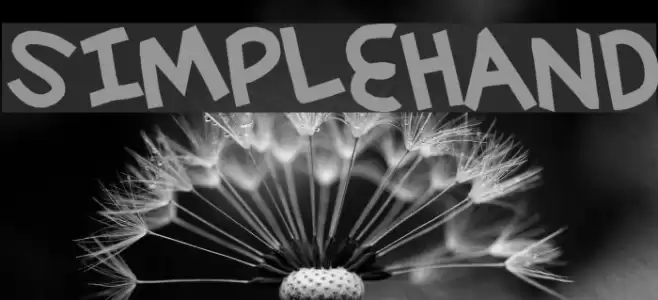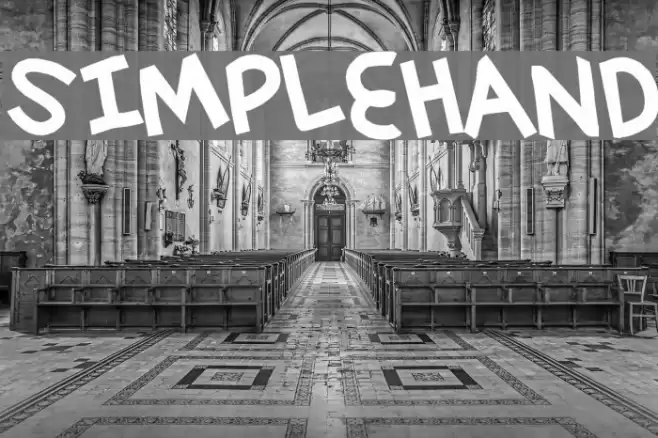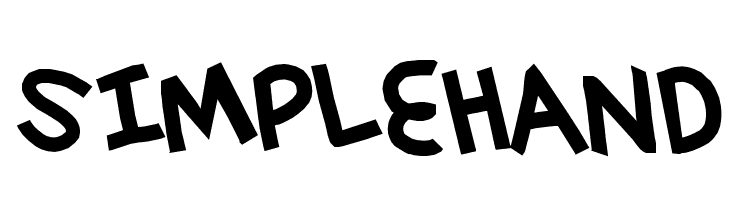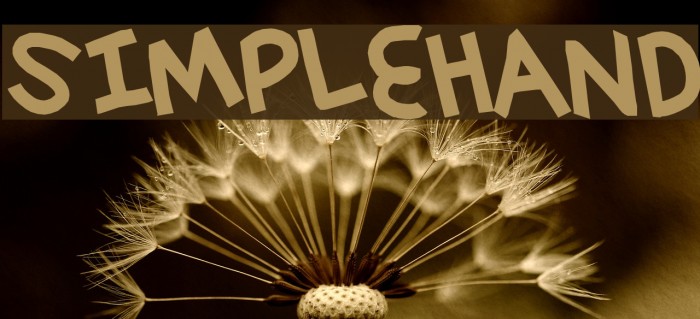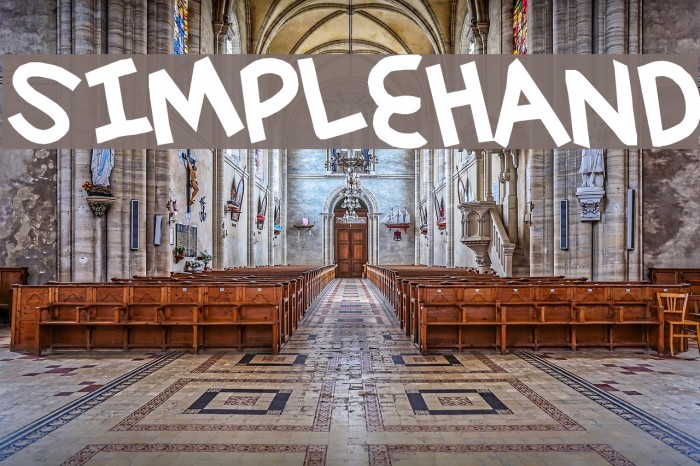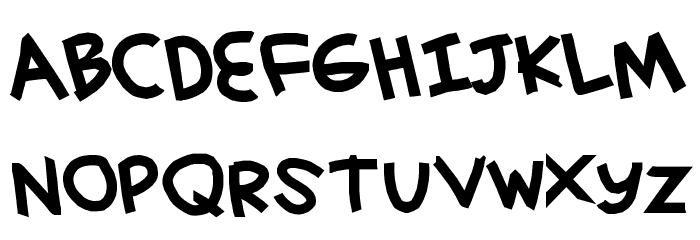
simplehand Font
simplehand Description
This font features a playful and energetic style, characterized by its bold and slightly irregular letterforms. The strokes are thick and consistent, giving it a strong presence. The letters have a hand-drawn, casual appearance, with slight variations in angle and size that add to its informal charm. The overall look is dynamic and lively, making it suitable for projects that require a fun and approachable aesthetic. The uppercase letters are prominent and well-defined, ensuring readability while maintaining a whimsical feel.
A bold, playful font with a hand-drawn, casual style from Comic fonts.
- Proposed Projects: Ideal for children's books, comic strips, playful branding, and casual event invitations.
- Overall Style: Playful, Casual